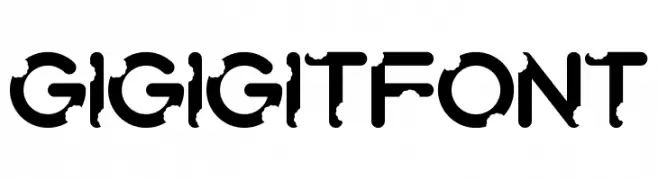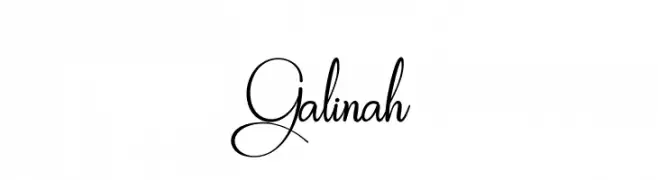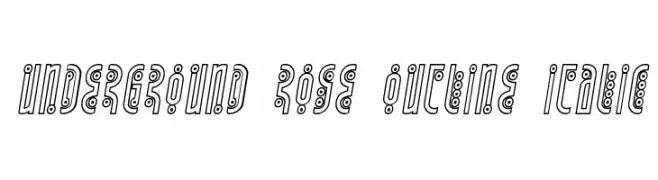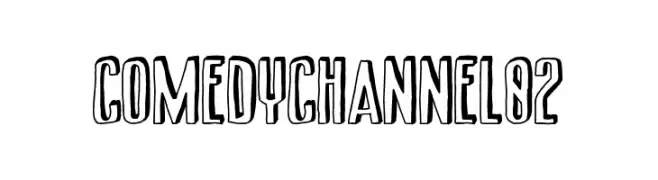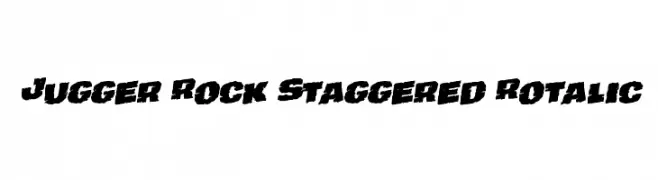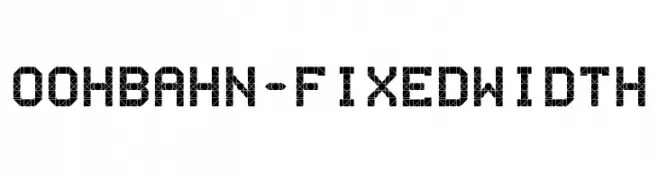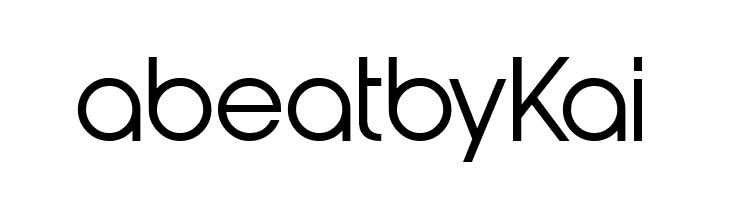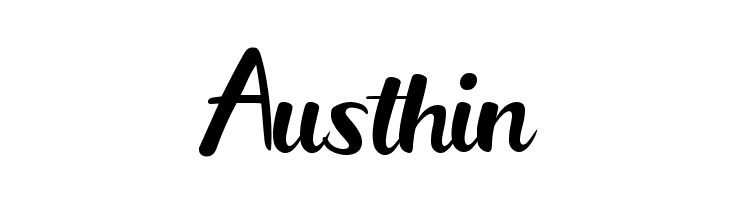
A bold, geometric font with a futuristic and modern style.
An elegant and flowing script font with intricate decorative elements.
A playful, school-themed decorative font with bold, blocky letters.
A bold, semi-condensed font with strong strokes and high legibility.
A playful, whimsical script font with a handwritten style.
A playful, decorative outline font with italic slant and circular embellishments.
A bold, hand-drawn font with a playful, outlined style.
A modern, geometric sans-serif font with clean lines and bold presence.
A bold, rugged font with a staggered, rock-like texture and dynamic style.
A geometric, fixed-width font with a mosaic-like pattern, offering a modern and artistic style.